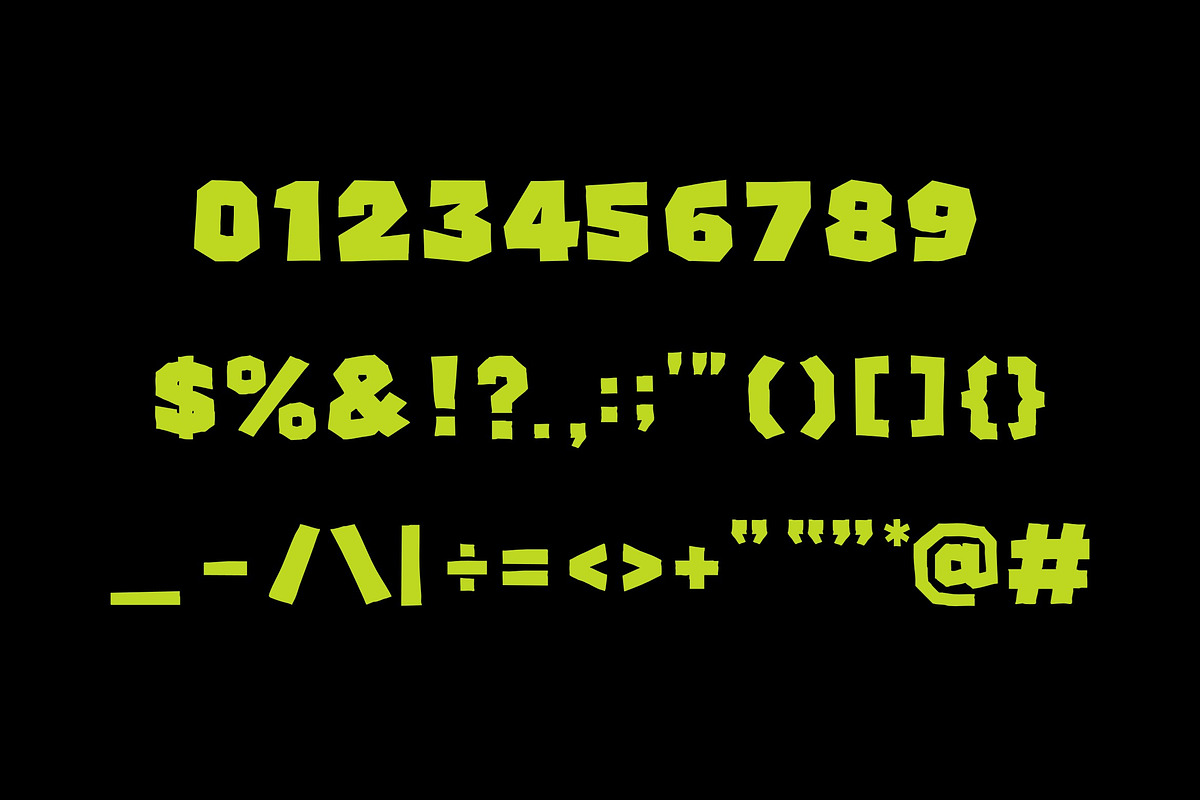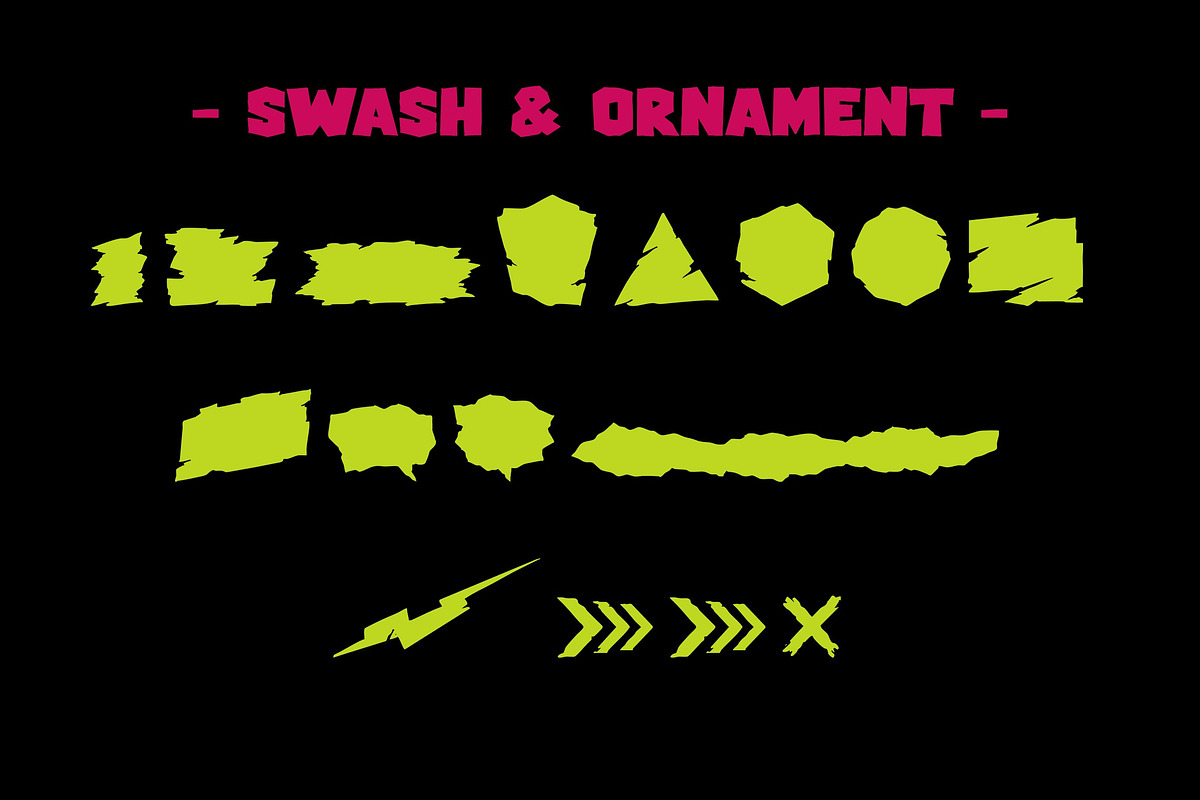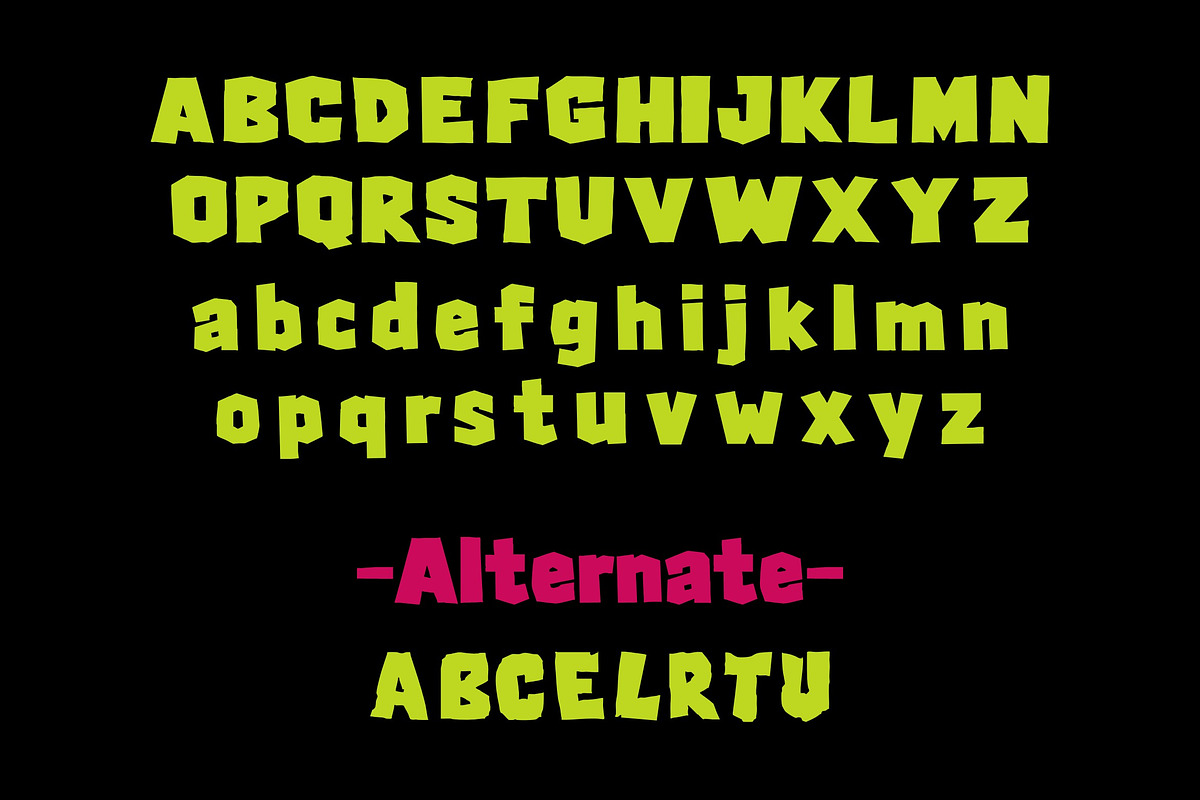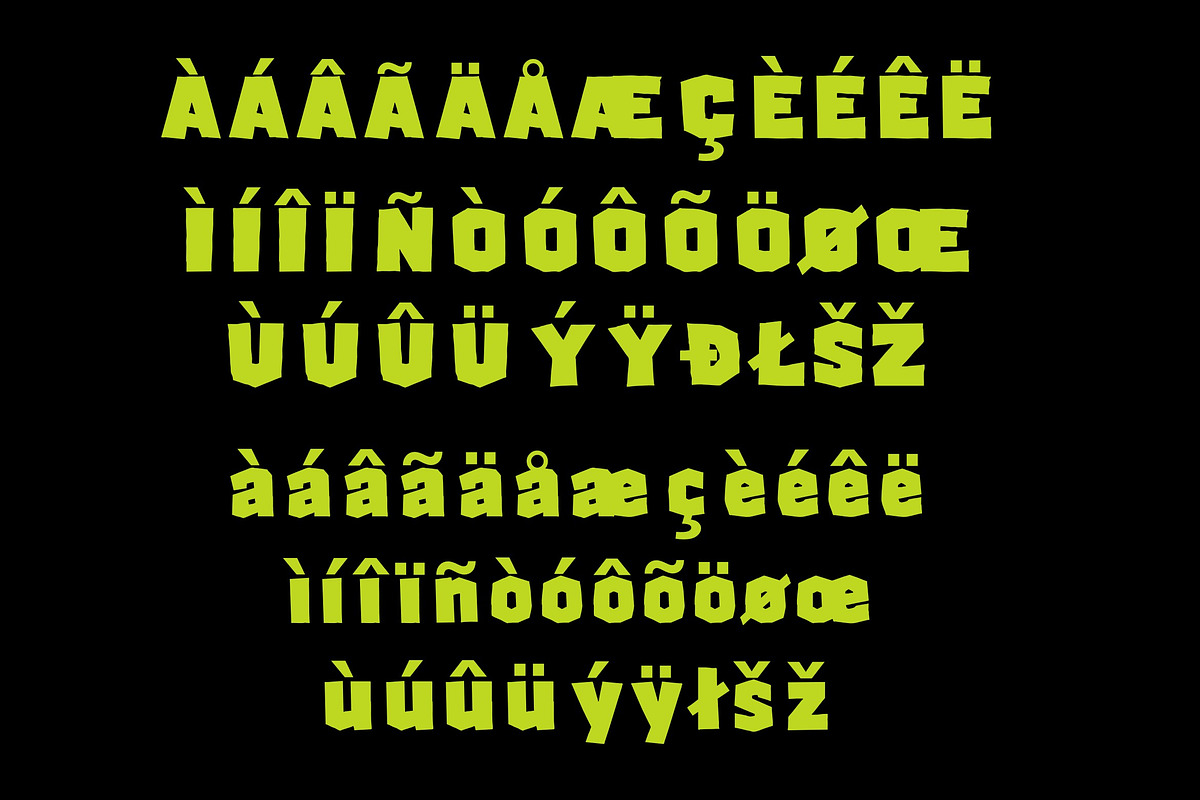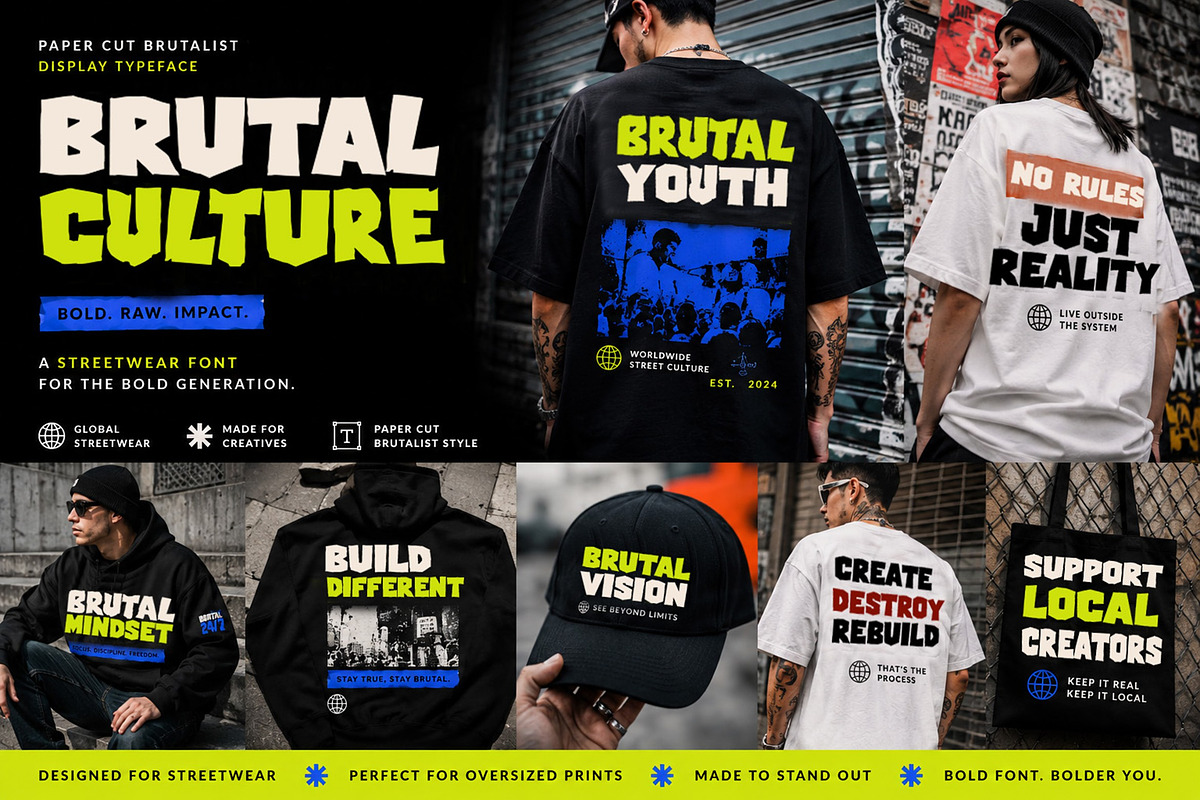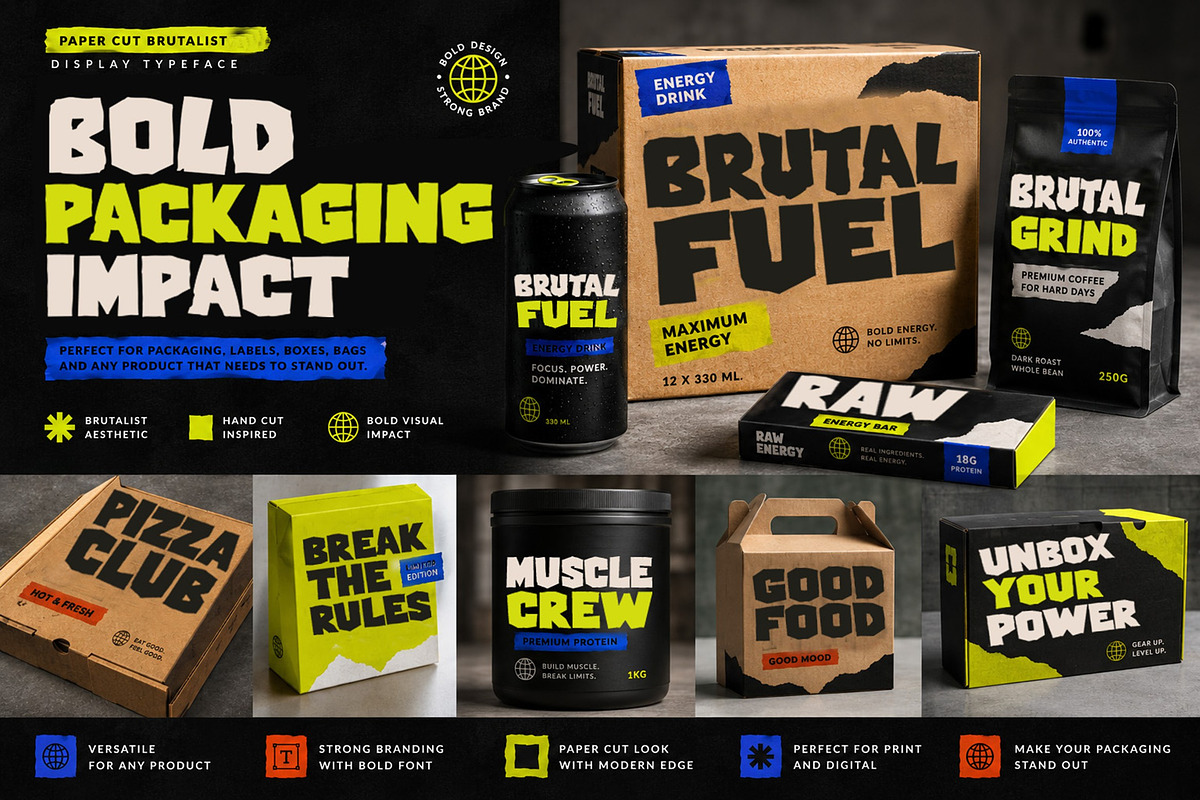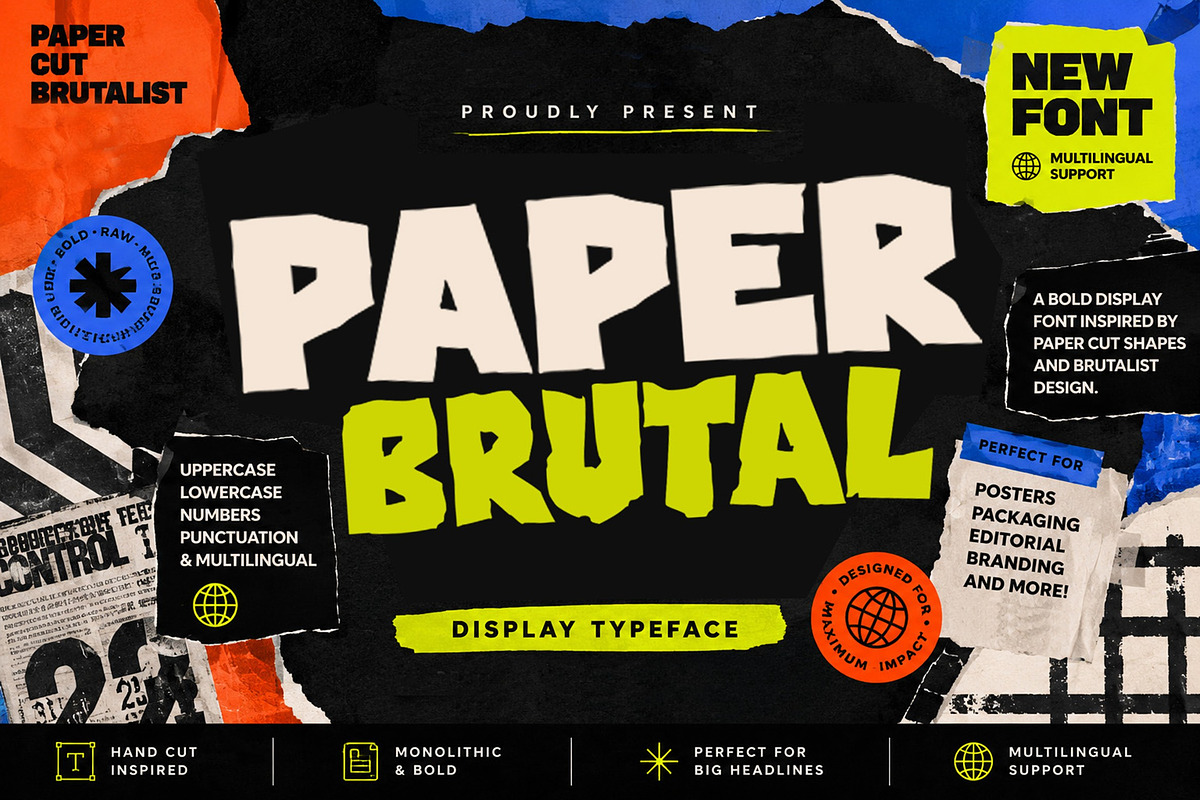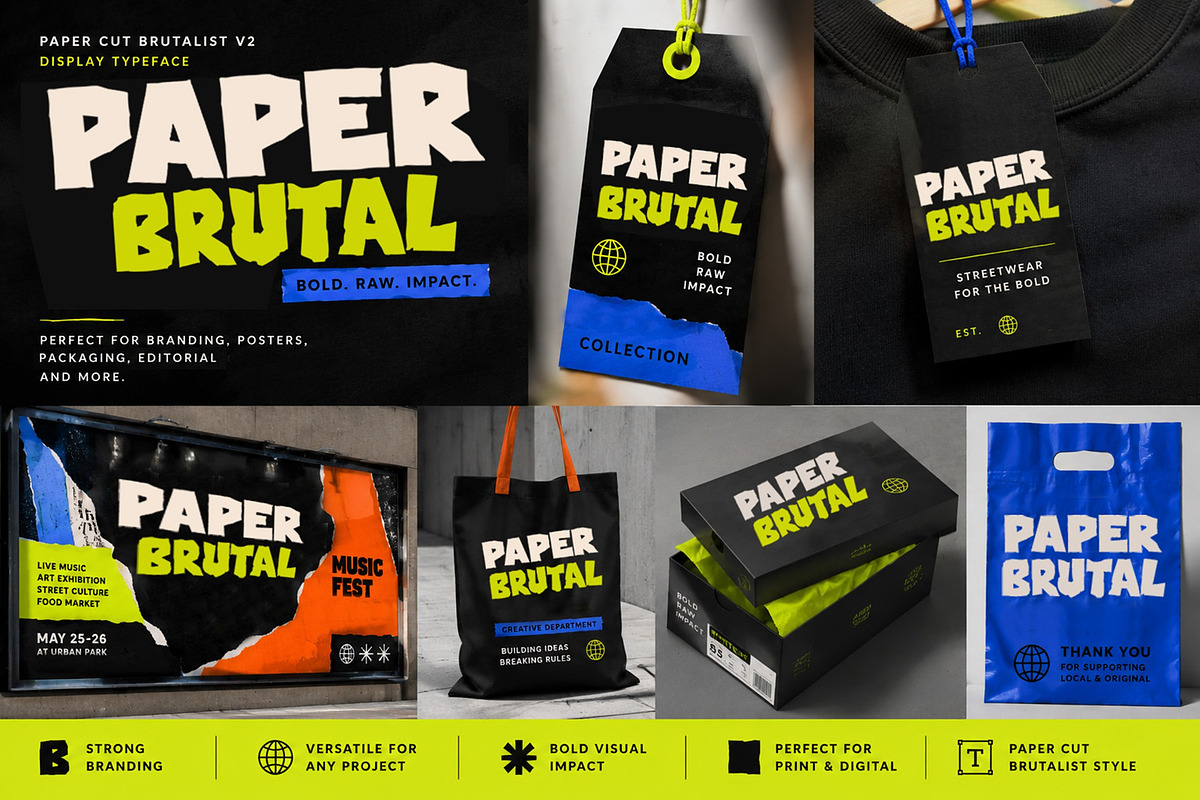
Paper Brutal
Paper Brutal is a bold display font inspired by hand-cut paper shapes and contemporary brutalist typography. Featuring monolithic forms, raw geometric cuts, and strong visual impact, it is perfect for posters, packaging, editorial layouts, and modern branding projects.
\\- 223 Glyps included Uppercase, Lowercase, Numeral, Punctuation, Multilingual international Language.